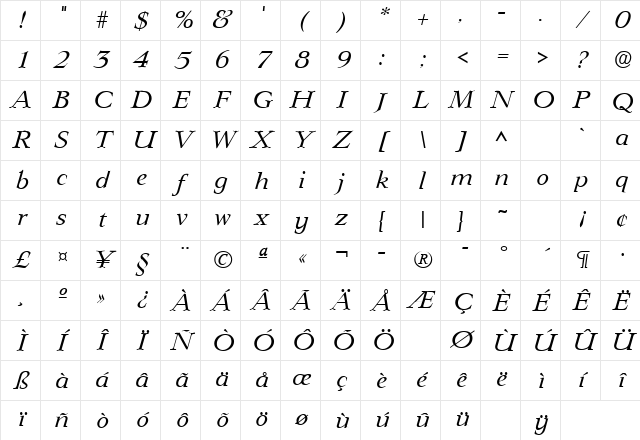
Wild Wood SF Italic
Wild Wood SF Family
Complete Wild Wood SF Italic glyph index. Displaying only characters natively supported by Wild Wood SF Italic font.
Design Context for Wild Wood SF
Wild Wood SF echoes the hand-painted signage and woodblock typography of the American frontier, with a warm, rugged personality. The slanted form adds forward momentum and visual energy.
Font Pairing: Combine Wild Wood SF with a simple slab or neutral sans - period-accurate companions reinforce the vintage feel without competing for attention.
Pro Tip: Use Wild Wood SF for short, impactful bursts of text - it shines in poster headlines and product names rather than extended copy.